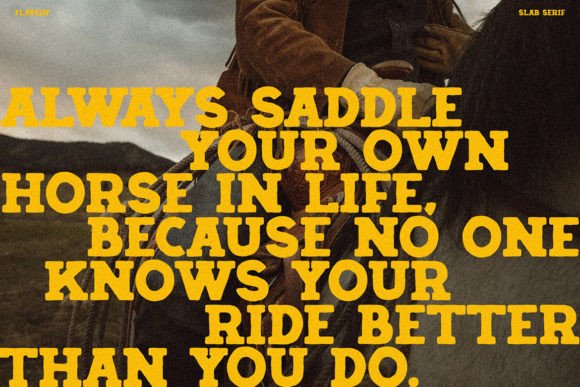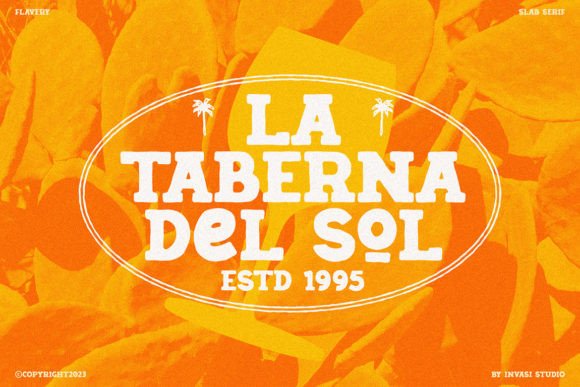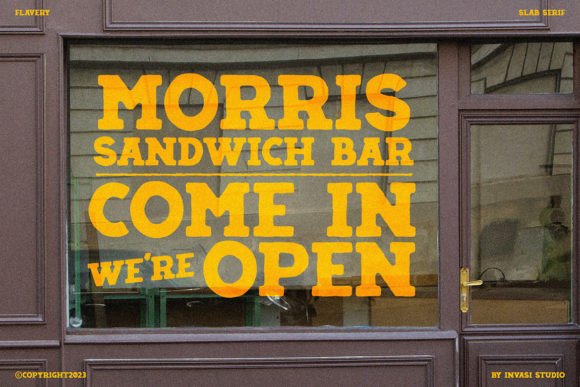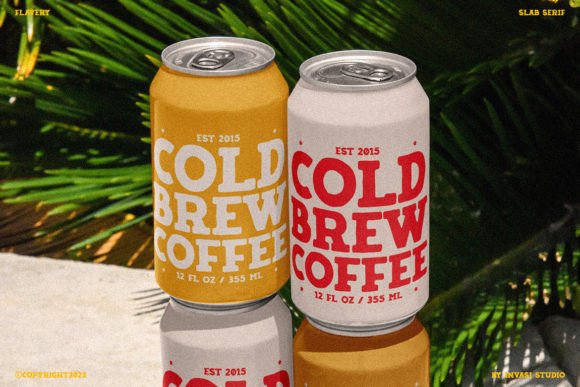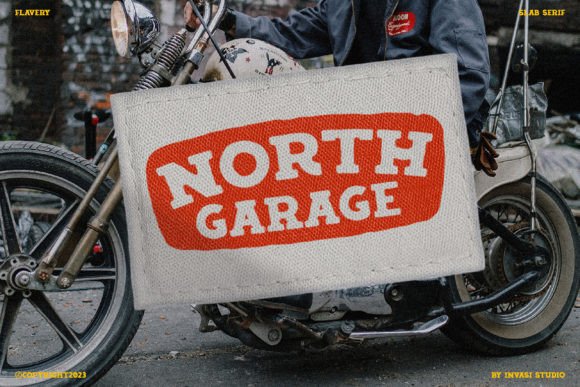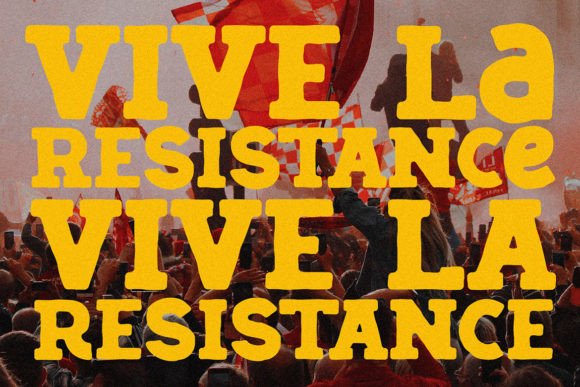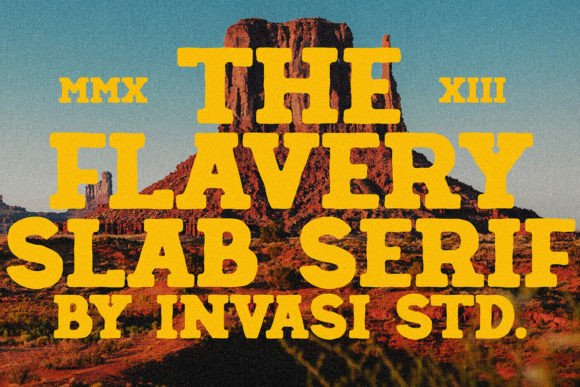
Introducing Flavery Font: The Ultimate Vintage Slab Serif for Rustic Designs
Are you looking for a font that can add a touch of old-world charm to your designs? Look no further than Flavery Font, a vintage slab serif font that is perfect for creating a rustic and rugged aesthetic. With its hand-drawn slab serif style, Flavery is ideal for evoking the old-fashioned cowboy era or the classic vintage vibes era.
What Makes Flavery Font So Special?
Flavery Font features a bold and distinctive style that will make your designs stand out and give them a unique character. Its slab serif style is reminiscent of classic vintage signs, posters, and packaging, making it perfect for display purposes. Whether you’re working on a poster, packaging, or branding project, Flavery will add a touch of vintage authenticity to your work.
Key Features of Flavery Font
- Hand-drawn slab serif style: Flavery’s hand-drawn style gives it a unique and rustic feel that is perfect for creating a vintage aesthetic.
- Alternate glyphs: Flavery features alternate glyphs, which allow you to add variety and creativity to your designs.
- Multilingual Latin character support: Flavery supports multilingual Latin characters, making it a great choice for designers who work with international clients or want to create designs that appeal to a global audience.
Flavery Font is perfect for designers and crafters who want to add a touch of vintage charm to their work. Whether you’re creating posters, packaging, or branding materials, Flavery is a great choice. Its bold and distinctive style will make your designs stand out and give them a unique character.
Use Flavery Font for a Variety of Projects
Flavery Font is versatile and can be used for a variety of projects, including:
- Posters: Create eye-catching posters with a vintage flair using Flavery Font.
- Packaging: Add a touch of vintage authenticity to your packaging designs with Flavery Font.
- Branding: Use Flavery Font to create a unique and memorable brand identity.
- Signage: Create vintage-style signs with Flavery Font that will grab attention and add a touch of nostalgia to your designs.
Why Choose Flavery Font?
There are many fonts available that claim to offer a vintage aesthetic, but Flavery Font stands out from the rest. Here are just a few reasons why:
- Unique style: Flavery Font has a unique and distinctive style that will make your designs stand out.
- Versatile: Flavery Font can be used for a variety of projects, from posters to packaging to branding.